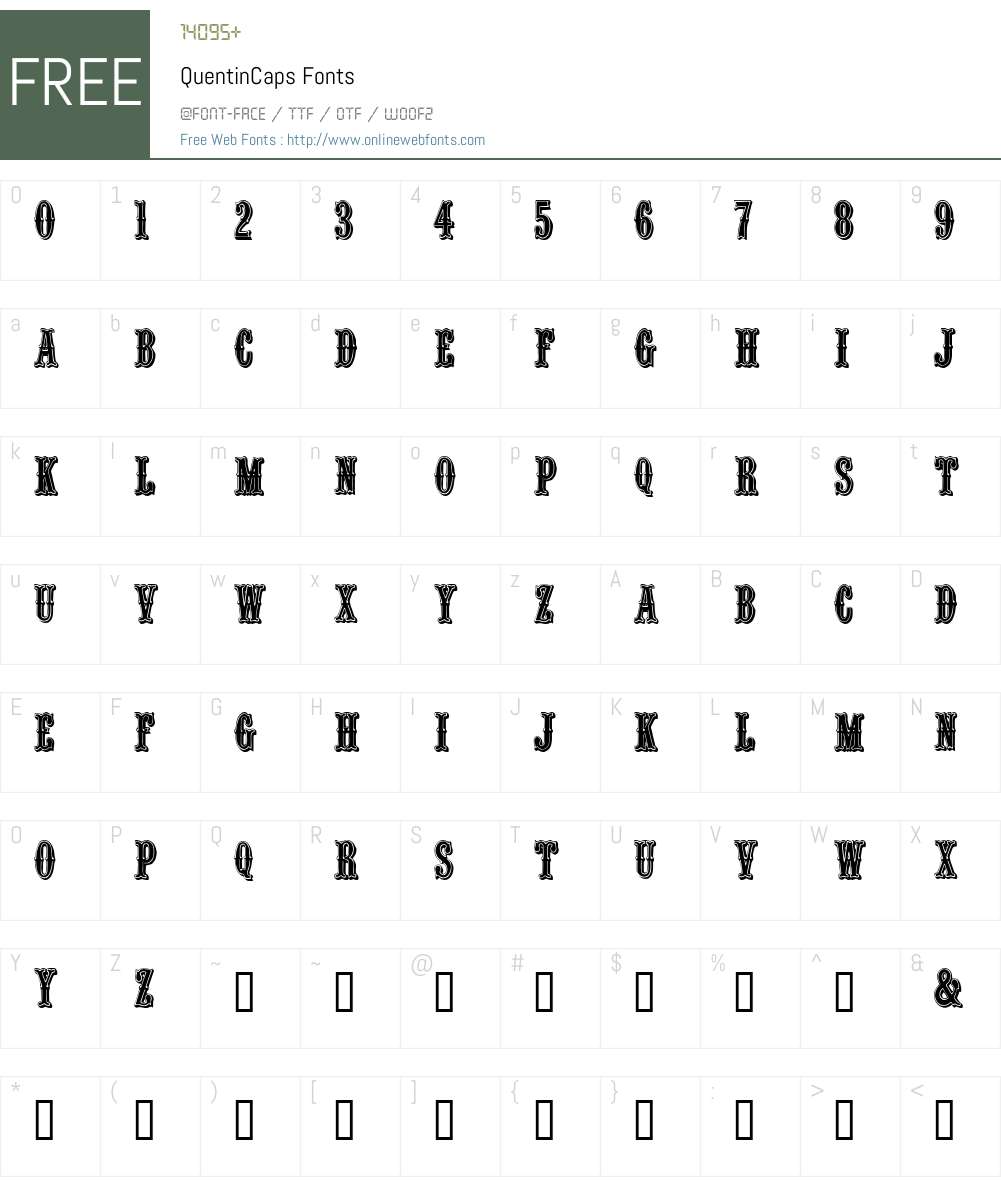
Quentin Caps Font Generator . free download of quentin caps font. Quentin caps font is free for both personel and commercial usages. quentin caps font is a retro, fancy typeface created by dieter steffmann. This retro font was designed with clarity and usability in mind. download quentincaps font · free for commercial use · copyright (c) typographer mediengestaltung, 2000. Quentin caps by dieter steffmann. 380,621 downloads (29 yesterday) 1 comment. Released in 2001 by dieter steffmann and licensed. download and install the quentin caps font by dieter steffmann. quentin caps font is a fancy, retro font designed by dieter steffmann. quentin caps font is a high quality vintage font that is designed by dieter steffmann and is available for free download personal & commercial use. The quentin caps font has been downloaded 180,215 times.
380,621 downloads (29 yesterday) 1 comment. The quentin caps font has been downloaded 180,215 times. Released in 2001 by dieter steffmann and licensed. download and install the quentin caps font by dieter steffmann. quentin caps font is a fancy, retro font designed by dieter steffmann. Quentin caps by dieter steffmann. quentin caps font is a high quality vintage font that is designed by dieter steffmann and is available for free download personal & commercial use. Quentin caps font is free for both personel and commercial usages. This retro font was designed with clarity and usability in mind. download quentincaps font · free for commercial use · copyright (c) typographer mediengestaltung, 2000.
Quentin Caps Font Generator The quentin caps font has been downloaded 180,215 times. download and install the quentin caps font by dieter steffmann. quentin caps font is a high quality vintage font that is designed by dieter steffmann and is available for free download personal & commercial use. Quentin caps font is free for both personel and commercial usages. 380,621 downloads (29 yesterday) 1 comment. free download of quentin caps font. quentin caps font is a fancy, retro font designed by dieter steffmann. Quentin caps by dieter steffmann. The quentin caps font has been downloaded 180,215 times. download quentincaps font · free for commercial use · copyright (c) typographer mediengestaltung, 2000. This retro font was designed with clarity and usability in mind. Released in 2001 by dieter steffmann and licensed. quentin caps font is a retro, fancy typeface created by dieter steffmann.
Quentin Caps Font Dieter Steffmann FontSpace Quentin Caps Font Generator Quentin caps by dieter steffmann. free download of quentin caps font. Quentin caps font is free for both personel and commercial usages. quentin caps font is a retro, fancy typeface created by dieter steffmann. download quentincaps font · free for commercial use · copyright (c) typographer mediengestaltung, 2000. This retro font was designed with clarity and usability. Quentin Caps Font Generator.
Quentin Caps Free Font Download MaisFontes Quentin Caps Font Generator The quentin caps font has been downloaded 180,215 times. quentin caps font is a retro, fancy typeface created by dieter steffmann. free download of quentin caps font. download and install the quentin caps font by dieter steffmann. Quentin caps by dieter steffmann. 380,621 downloads (29 yesterday) 1 comment. Released in 2001 by dieter steffmann and licensed. . Quentin Caps Font Generator.
Quentin Caps Free Quentin Caps Font Generator 380,621 downloads (29 yesterday) 1 comment. quentin caps font is a fancy, retro font designed by dieter steffmann. Quentin caps by dieter steffmann. download quentincaps font · free for commercial use · copyright (c) typographer mediengestaltung, 2000. quentin caps font is a high quality vintage font that is designed by dieter steffmann and is available for free. Quentin Caps Font Generator.
Small Caps Font Generator Quentin caps font is free for both personel and commercial usages. free download of quentin caps font. download and install the quentin caps font by dieter steffmann. The quentin caps font has been downloaded 180,215 times. 380,621 downloads (29 yesterday) 1 comment. This retro font was designed with clarity and usability in mind. quentin caps font is. Quentin Caps Font Generator.
Quentin Font Download Free for Desktop & font Quentin Caps Font Generator The quentin caps font has been downloaded 180,215 times. download and install the quentin caps font by dieter steffmann. quentin caps font is a fancy, retro font designed by dieter steffmann. Quentin caps font is free for both personel and commercial usages. free download of quentin caps font. 380,621 downloads (29 yesterday) 1 comment. quentin caps. Quentin Caps Font Generator.
49ers Font Free Download Free Fonts Vault Free fonts download Quentin Caps Font Generator download and install the quentin caps font by dieter steffmann. The quentin caps font has been downloaded 180,215 times. quentin caps font is a high quality vintage font that is designed by dieter steffmann and is available for free download personal & commercial use. 380,621 downloads (29 yesterday) 1 comment. free download of quentin caps font. Released. Quentin Caps Font Generator.
Quentin Caps Font Free Font Quentin Caps Font Generator Quentin caps by dieter steffmann. Released in 2001 by dieter steffmann and licensed. quentin caps font is a high quality vintage font that is designed by dieter steffmann and is available for free download personal & commercial use. The quentin caps font has been downloaded 180,215 times. download and install the quentin caps font by dieter steffmann. . Quentin Caps Font Generator.